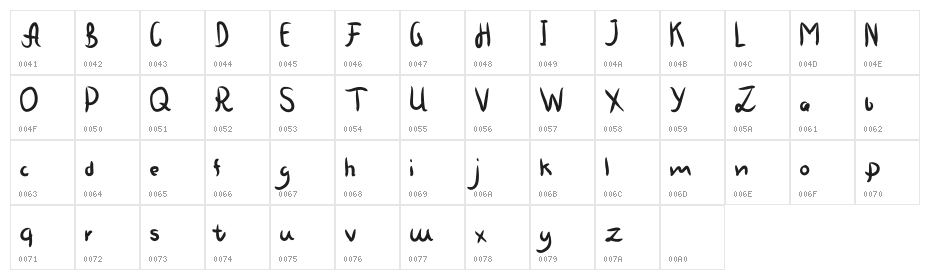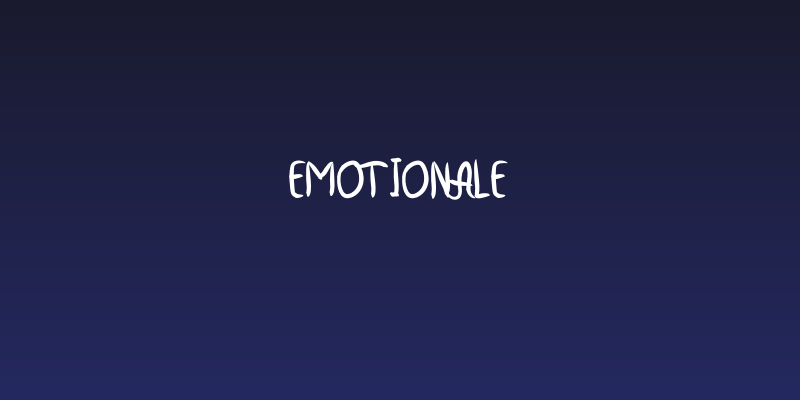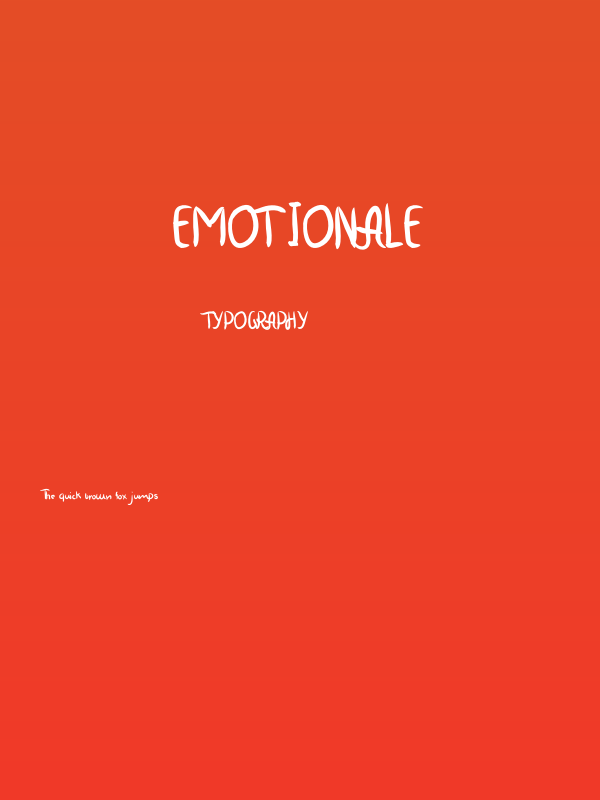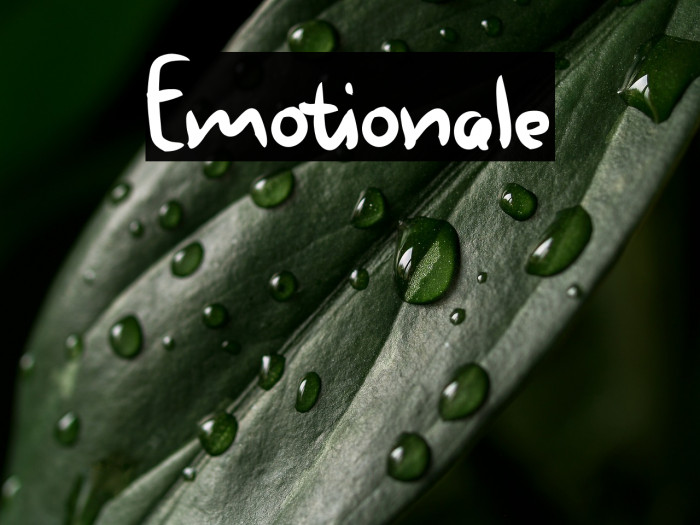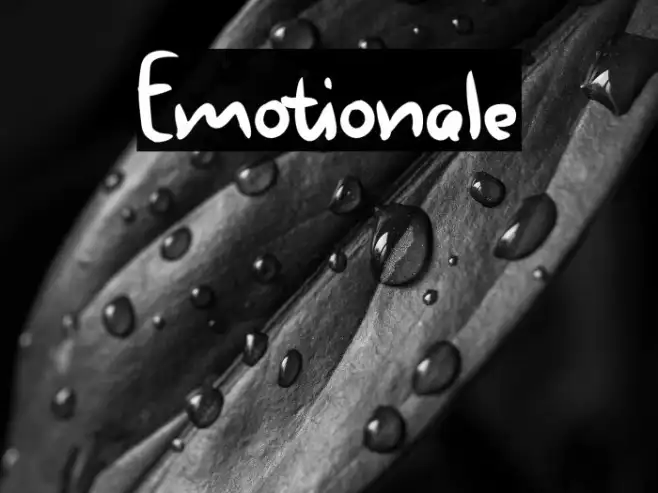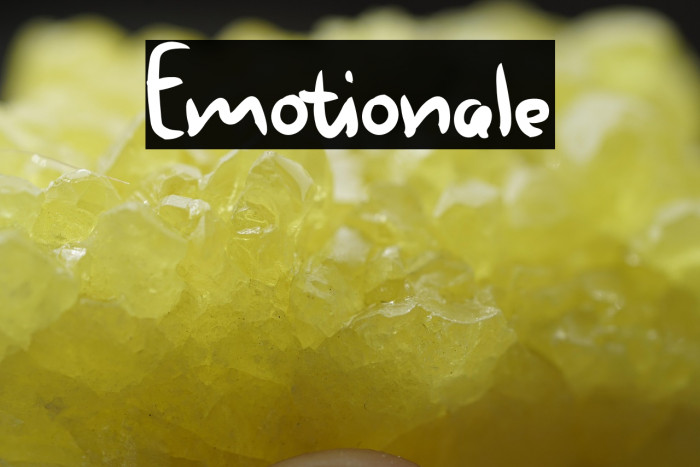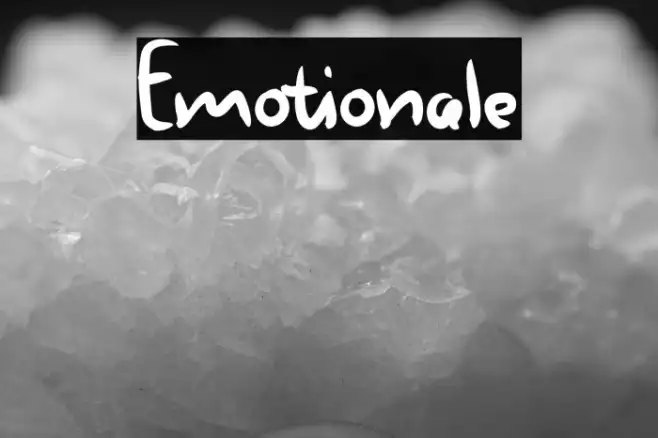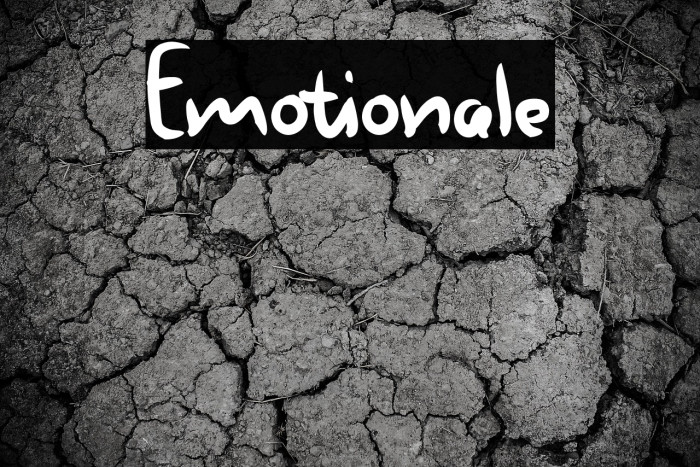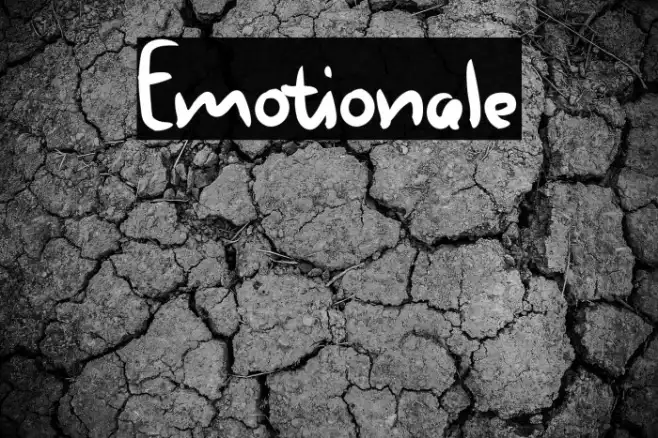
Emotionale Font
Emotionale Description
This font features a playful and expressive handwritten style, characterized by its fluid and dynamic strokes. The letters have a casual, yet artistic appearance, with varying stroke widths that add a sense of movement and energy. The uppercase letters are bold and prominent, while the lowercase letters maintain a consistent flow, enhancing readability. The overall design is informal, making it suitable for creative and personal projects. The font's unique character is further emphasized by its slightly irregular shapes, giving it a charming and authentic handwritten feel.
| Proposed Projects | Ideal for greeting cards, invitations, personal branding, and creative projects that require a personal touch. |